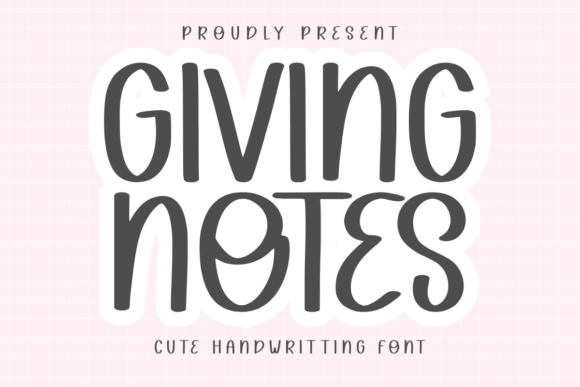
Giving Notes Font: The Perfect Handwriting Font for Creative Moms
Are you a creative mom who loves DIY projects, journaling, and Cricut crafts? Do you enjoy making planners, stickers, cards, and quotes? If so, you’re in luck! Introducing Giving Notes Font, a cute and playful handwriting font that’s perfect for all your creative endeavors.
What is Giving Notes Font?
Giving Notes Font is a handwriting font designed specifically for creative moms who love making things. It’s a digital font that can be used on your computer, Cricut machine, or any other device that allows font installation. The font is carefully crafted to resemble handwritten notes, making it perfect for planners, journals, stickers, cards, and quotes.
- Cute and Playful: Giving Notes Font is designed to be fun and playful, making it perfect for creative projects.
- Handwriting Style: The font is carefully crafted to resemble handwritten notes, giving your projects a personal touch.
Uses of Giving Notes Font
Giving Notes Font is a versatile font that can be used for a variety of creative projects. Here are some ideas to get you started:
- Planners: Use Giving Notes Font to create custom planners, journals, and organizers.
- Stickers: Design stickers with Giving Notes Font to add a personal touch to your planners, journals, and crafts.
- Cards: Create custom greeting cards, invitations, and thank-you cards with Giving Notes Font.
- Quotes: Use Giving Notes Font to create inspiring quotes, posters, and social media graphics.
- Cricut Crafts: Giving Notes Font is compatible with Cricut machines, making it perfect for cutting vinyl, iron-on, and paper crafts.
Benefits of Giving Notes Font
Giving Notes Font offers several benefits to creative moms who love DIY projects. Here are some of the advantages of using this font:
- Easy to Read: Giving Notes Font is designed to be easy to read, making it perfect for planners, journals, and other projects where readability is important.
- Customizable: The font can be customized to fit your personal style, making it perfect for branding and personal projects.
Tips for Using Giving Notes Font
Here are some tips for using Giving Notes Font to get the most out of your creative projects:
- Experiment with Colors: Try different colors and color combinations to add visual interest to your projects.
- Mix and Match Fonts: Combine Giving Notes Font with other fonts to create a unique and personalized look.
- Use it for Titles: Use Giving Notes Font for titles, headings, and emphasis to add a touch of personality to your projects.
- Make it Your Own: Customize Giving Notes Font to fit your personal style and branding.